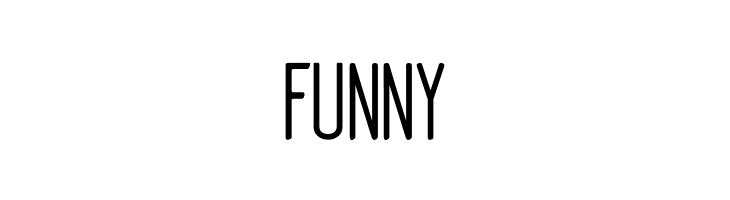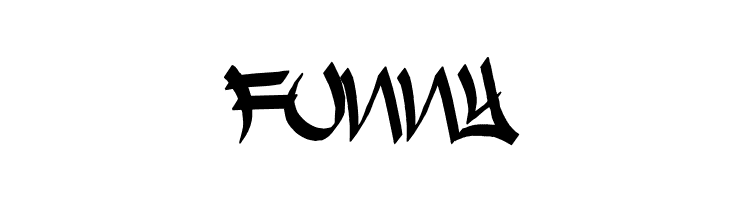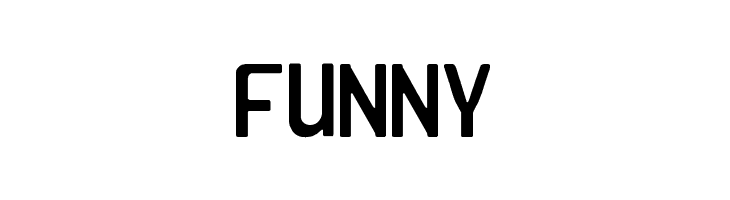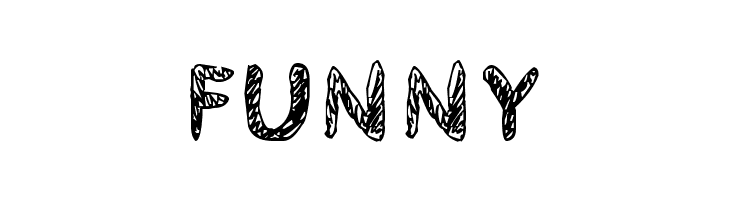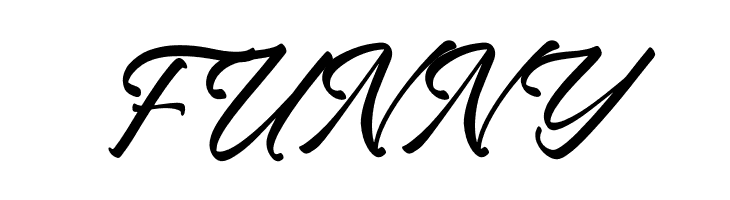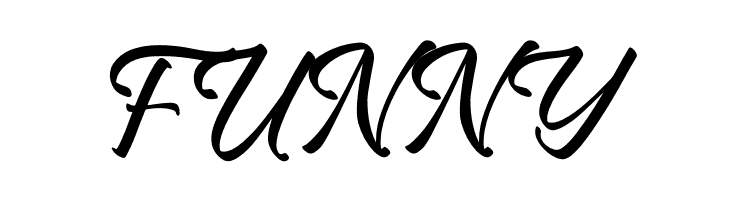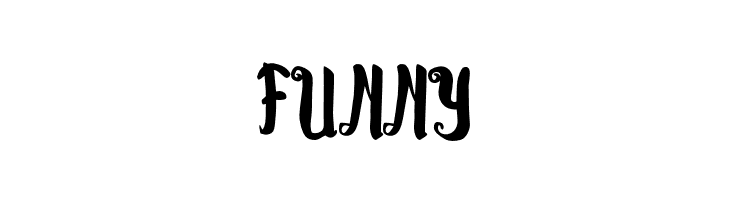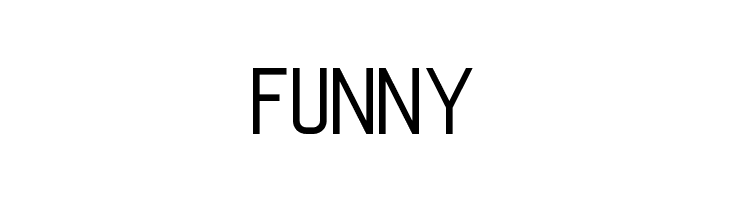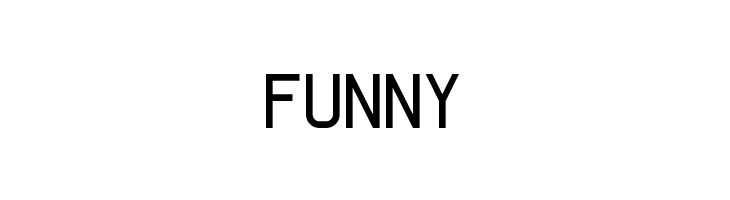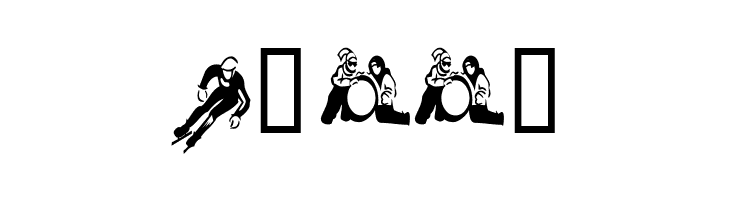
A whimsical and decorative font with ornate swirls and star embellishments.
A whimsical font with letters inside heart shapes with wings, perfect for romantic themes.
A decorative font with bold letters and intricate wing embellishments.
Silhouette-based decorative font depicting winter sports scenes.
A bold, decorative font with cloud and snowflake motifs for a wintry feel.
A playful font with characters inside witch's hats, ideal for magical themes.
A whimsical, decorative font with witch-themed elements.
A bold decorative font with uppercase letters in circles and feminine symbols.
A decorative font with characters encased in heart-shaped wreaths.
A romantic script font with each letter enclosed in a heart shape.
A playful font with each letter encased in a yo-yo design, perfect for fun and youthful projects.
A decorative font showcasing zodiac symbols in a modern, illustrative style.
A decorative dingbat font featuring insect and bug silhouettes.
A bold, playful font with irregular, chunky letterforms and a whimsical, hand-drawn appearance.
A whimsical and decorative font with playful, curly embellishments.
A modern, sleek font with tall, narrow characters and uniform stroke width.
A flowing, cursive script font with elegant, connected letters.
A bold, cursive script font with a dynamic and fluid style.
A dynamic and elegant script font with a flowing, handwritten style.
A bold, decorative blackletter font with intricate details and historical flair.
A playful, hand-drawn font with looping, whimsical characters.
A whimsical and abstract decorative font with thin lines and bold dots.
A bold, distressed font with a rugged, vintage texture.
A bold, decorative font with intricate line work and high contrast, perfect for impactful designs.
A bold, gothic-style Blackletter font with intricate detailing.
A distressed, hand-drawn font with angular, bold strokes and a rugged appearance.
A bold, graffiti-inspired font with sharp, angular lines and a dynamic style.
A classic serif font with sharp serifs and moderate contrast, offering elegance and readability.
A bold, cursive font with interconnected letters and a vintage flair.